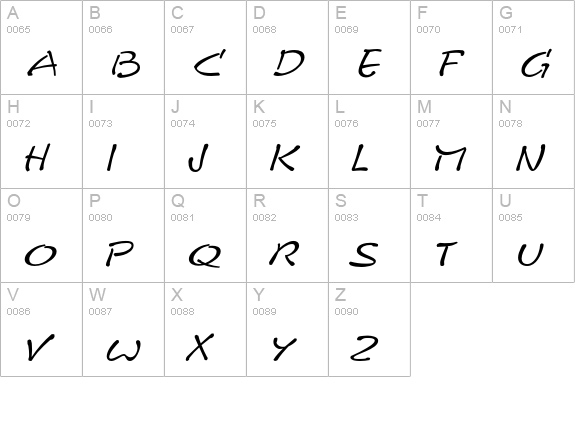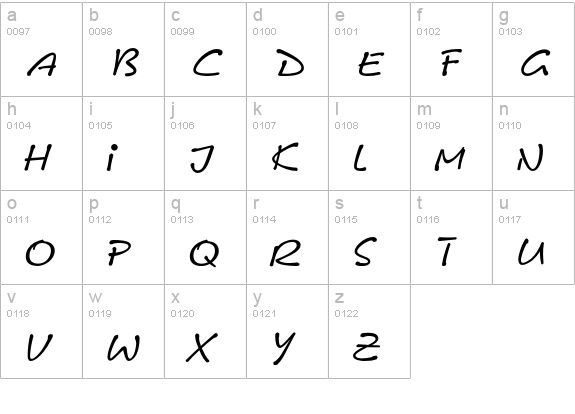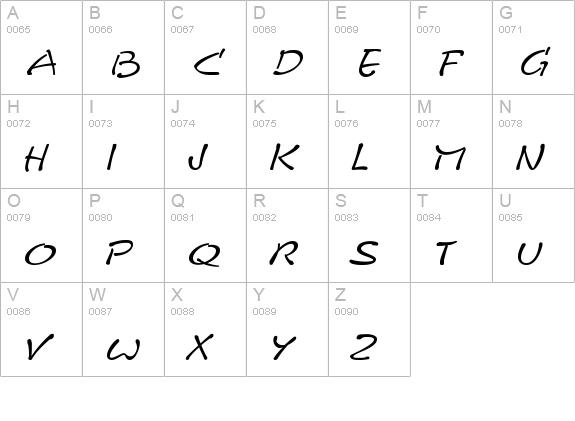
LeObelixEF-Regular Font Details
LeObelixEF-Regular is the standard, neutral variant in the LeObelixEF typeface family \xE2\x80\x94 well suited to general body text, paragraphs, and standard typographic work.
Introducing LeObelixEF-Regular, a captivating and versatile font that is sure to make a lasting impression. This font embodies a perfect balance between elegance and modernity, making it ideal for a wide range of creative projects. Its clean and legible design ensures readability across various mediums, from print to digital. LeObelixEF-Regular boasts a unique and eye-catching aesthetic, with its sleek lines and well-defined strokes. Its bold and confident presence adds a touch of sophistication to any design, making it perfect for branding, logos, headlines, and more. Whether you're designing a professional business card or creating captivating social media graphics, this font will effortlessly enhance your project. What sets LeObelixEF-Regular apart is not only its stunning visual appeal but also its availability as a free download on FontsMarket.com. This means that you can easily access and utilize this incredible font without any cost or hassle. It's a fantastic opportunity to elevate your designs without breaking the bank. With LeObelixEF-Regular, you have the freedom to explore your creativity and bring your visions to life. Its wide range of characters and glyphs allows for seamless integration into various design styles and languages. This font is a true testament to the power of typography in capturing attention and conveying messages effectively. Don't miss out on this incredible opportunity to enhance your designs with LeObelixEF-Regular. Download it for free at FontsMarket.com and elevate your creative projects to new heights. Whether you're a professional designer or a passionate hobbyist, this font is a must-have in your typographic arsenal. Embrace the freedom of creativity and let LeObelixEF-Regular be your trusted companion on your design journey.